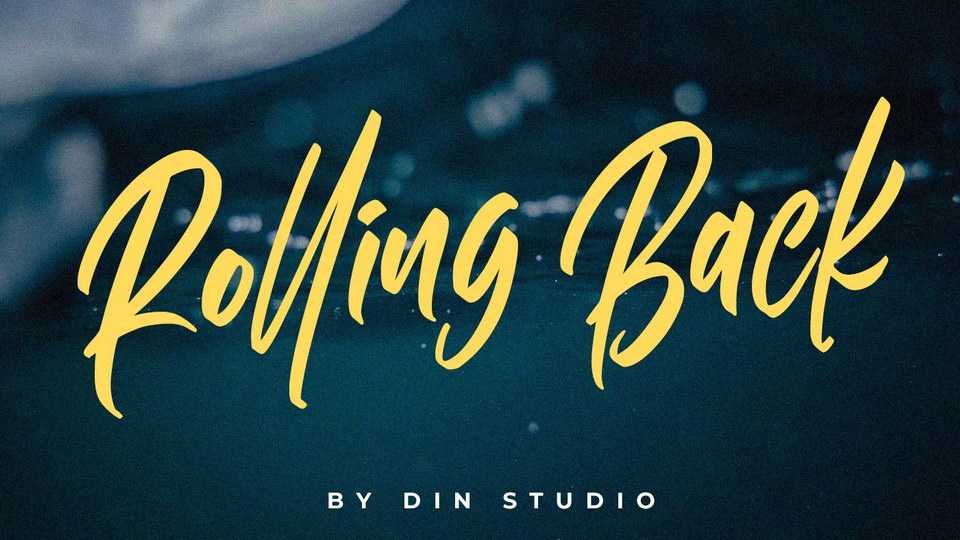
Download Rolling Back font, a casual hand lettered script with energetic look. Rolling Back script is suitable for any design like branding, quotes, t-shirt printing and etc.
Designer: Din Studio